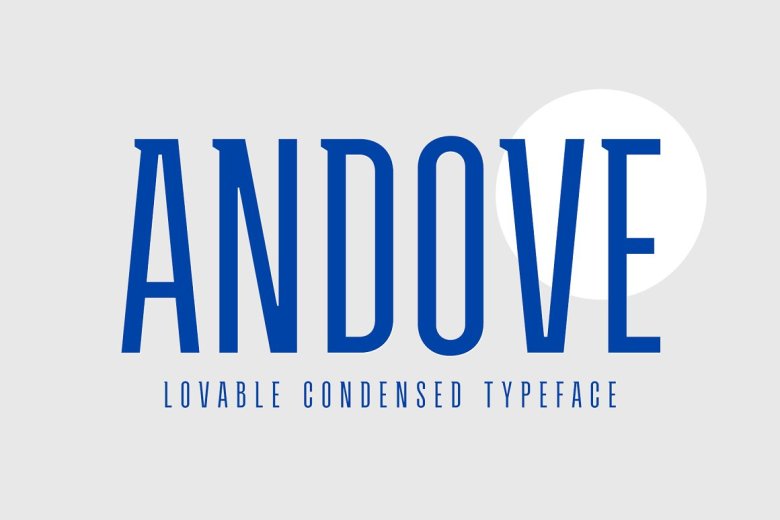
Andove Font Family
Andove Font
Andove It is a narrow sans font with very tight compression. A slim character and a fairly high x-height make it very suitable for very large eye-catching typesettings. A one-sided serif in ascenders gives a unique and shows it is sporty and strong enough.
Even more interesting, each weight has a true italic to make it an option for big headlines and poster titles. Contains 10 styles in six weights — Thin to Bold. Includes Upright and True Italics and extended language support including Cyrillic.